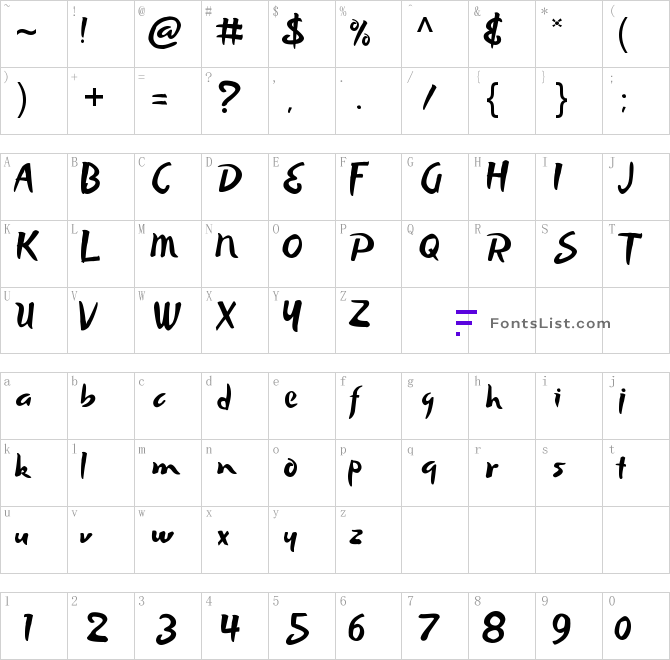
- Font Name:Beach Resort
Beach-Resort.ttf is a very beautiful artistic font, Beach-Resort.ttf is widely used in the design and printing of various books and pictures,Beach-Resort.ttf has a strong visual impact,Beach-Resort.ttf is a commonly used font in newspapers, magazines and books, and is used in posters, e-commerce Poster design, store design, logo design, font design and other fields.Beach-Resort.